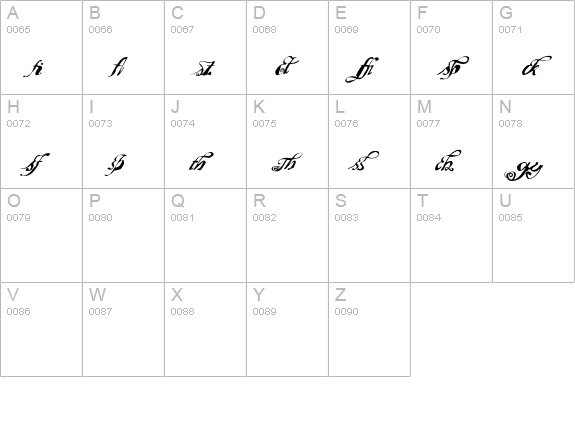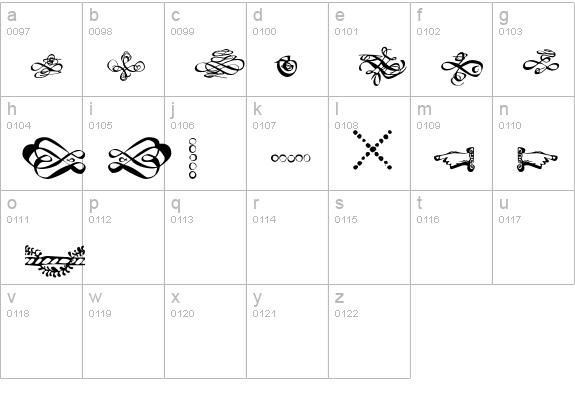
Masterpiece-Expert Font Details
Introducing Masterpiece-Expert, an exquisite font that embodies elegance and sophistication. Crafted with meticulous attention to detail, this font is a true work of art, carefully designed to elevate any typographic project to a masterpiece. Masterpiece-Expert is a versatile font that seamlessly combines classic and contemporary elements, resulting in a timeless aesthetic. Its graceful curves and precise lines create a harmonious balance, making it perfect for a wide range of design applications, from branding and packaging to editorial layouts and invitations. The unique feature of Masterpiece-Expert lies in its expertly designed ligatures and alternate glyphs, which add a touch of sophistication and uniqueness to your typography. These intricate details allow you to create stunning compositions that captivate the eye and leave a lasting impression. What sets Masterpiece-Expert apart is not only its exceptional design, but also its accessibility. This font is freely available to download at FontsMarket.com, allowing designers and creatives around the world to unleash their creativity without any limitations. Whether you're a professional designer or a hobbyist, this font is your key to creating truly remarkable designs. With its extensive character set, including multilingual support and a wide range of punctuation and symbols, Masterpiece-Expert provides endless possibilities for your typographic endeavors. Its seamless legibility ensures that your message is conveyed with clarity and style, while its inherent elegance adds a touch of refinement to your projects. Masterpiece-Expert is a font that embodies the essence of artistry and craftsmanship. It is a tool that empowers designers to transform their visions into reality, allowing their creativity to shine through. So, unlock your full creative potential and download Masterpiece-Expert for free at FontsMarket.com, where artistry meets accessibility.